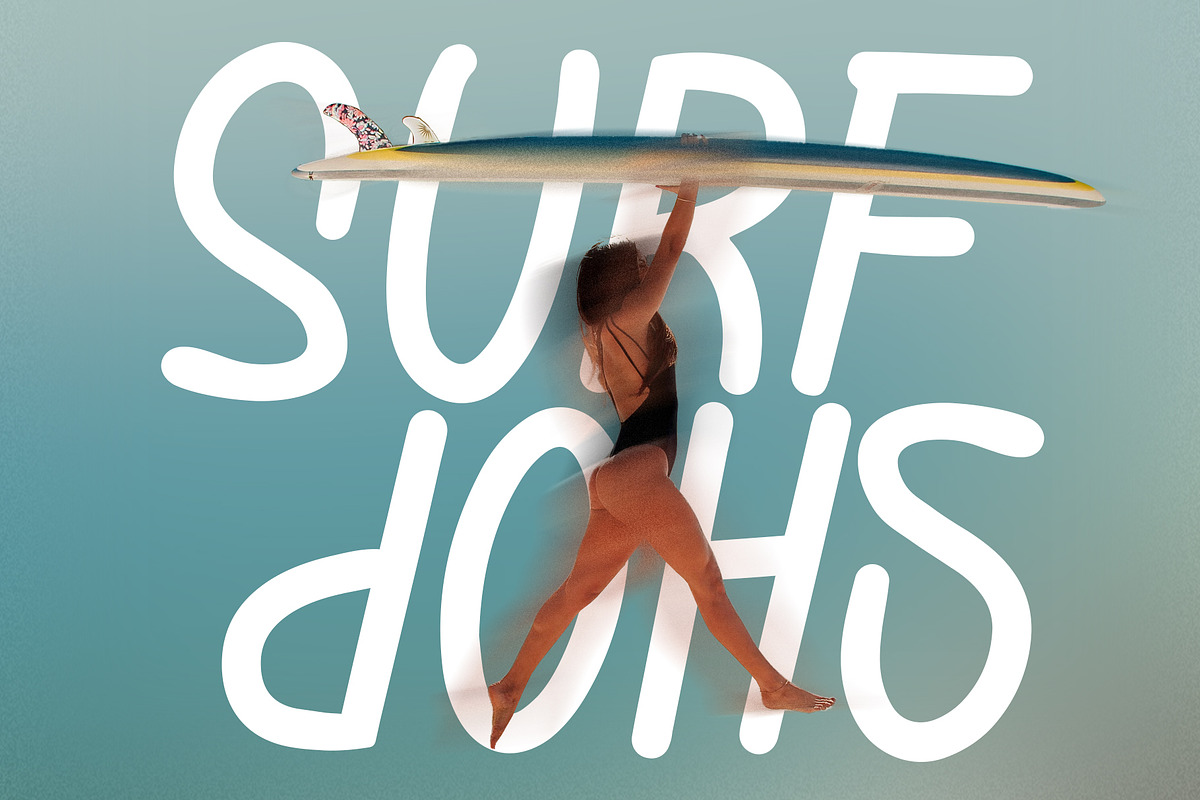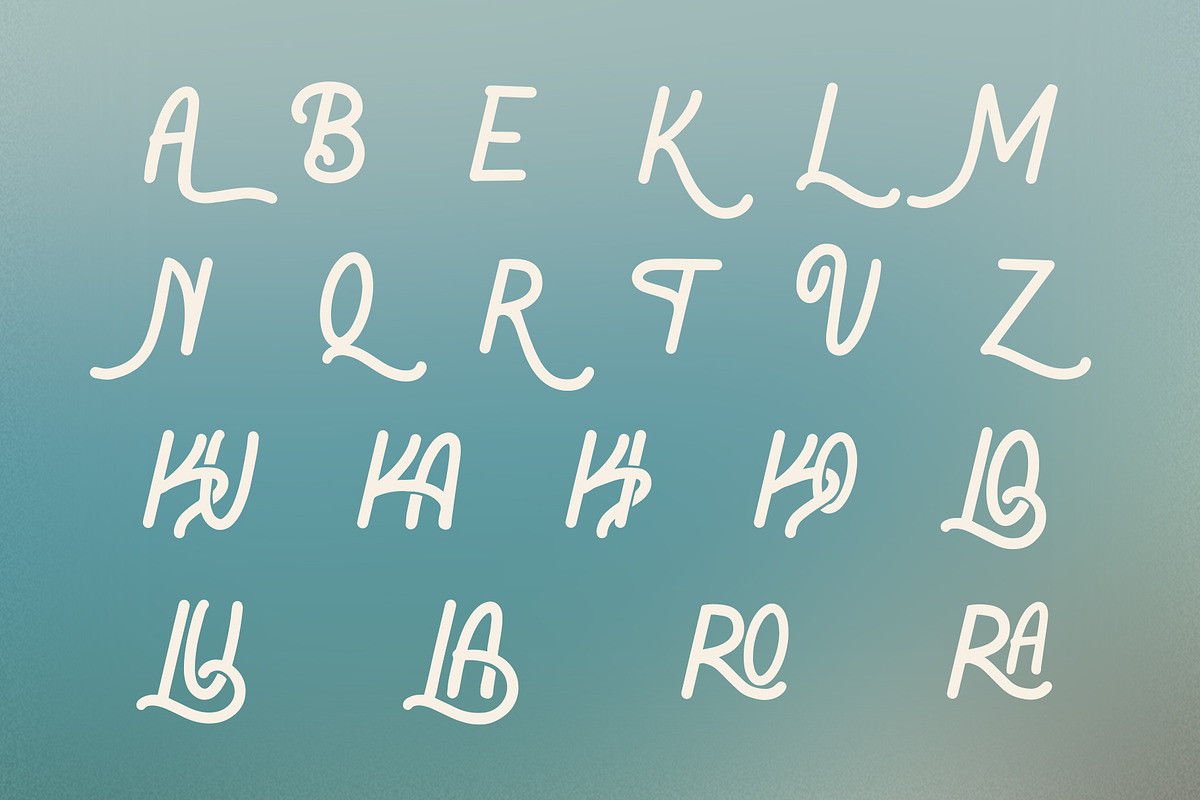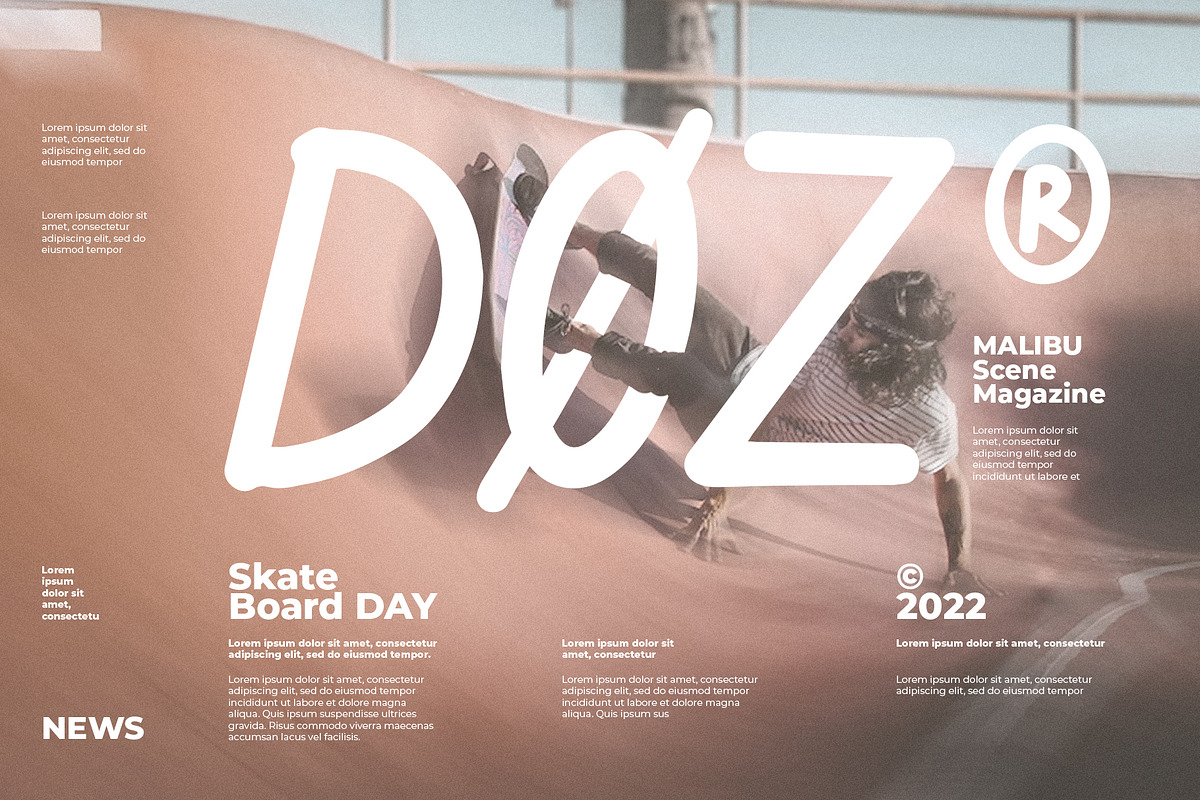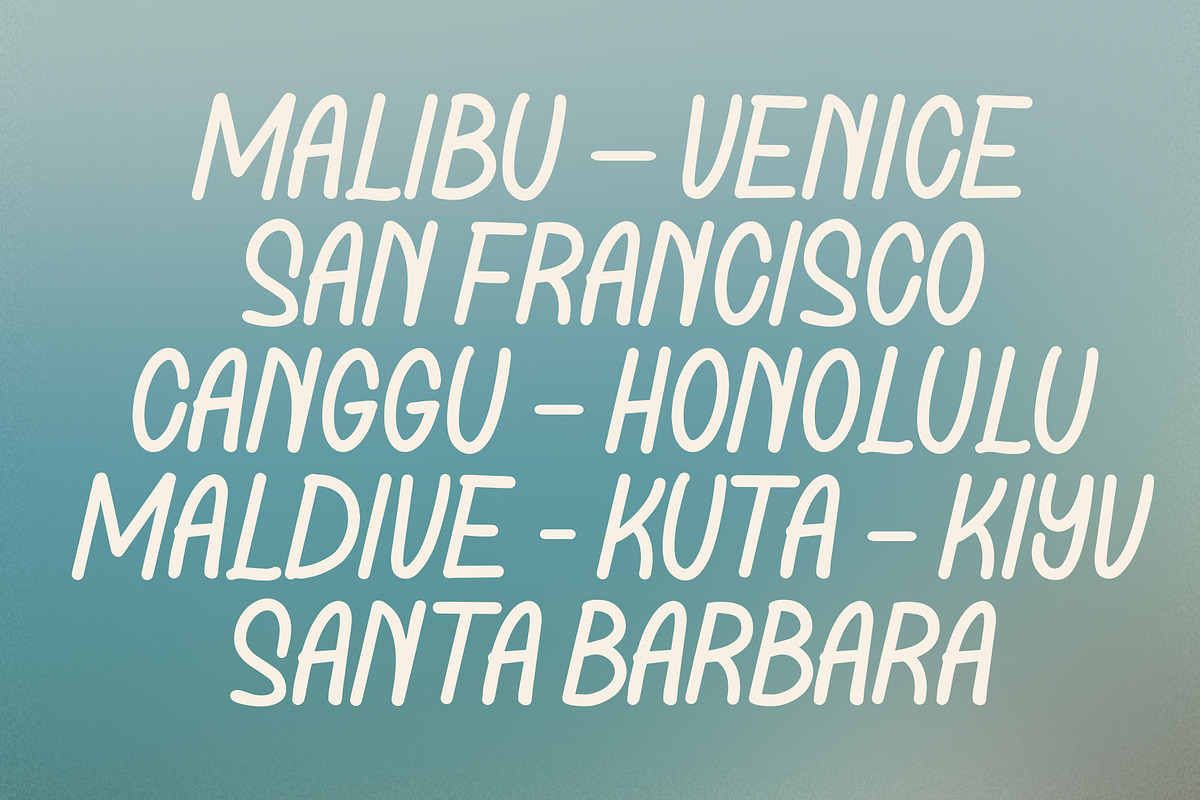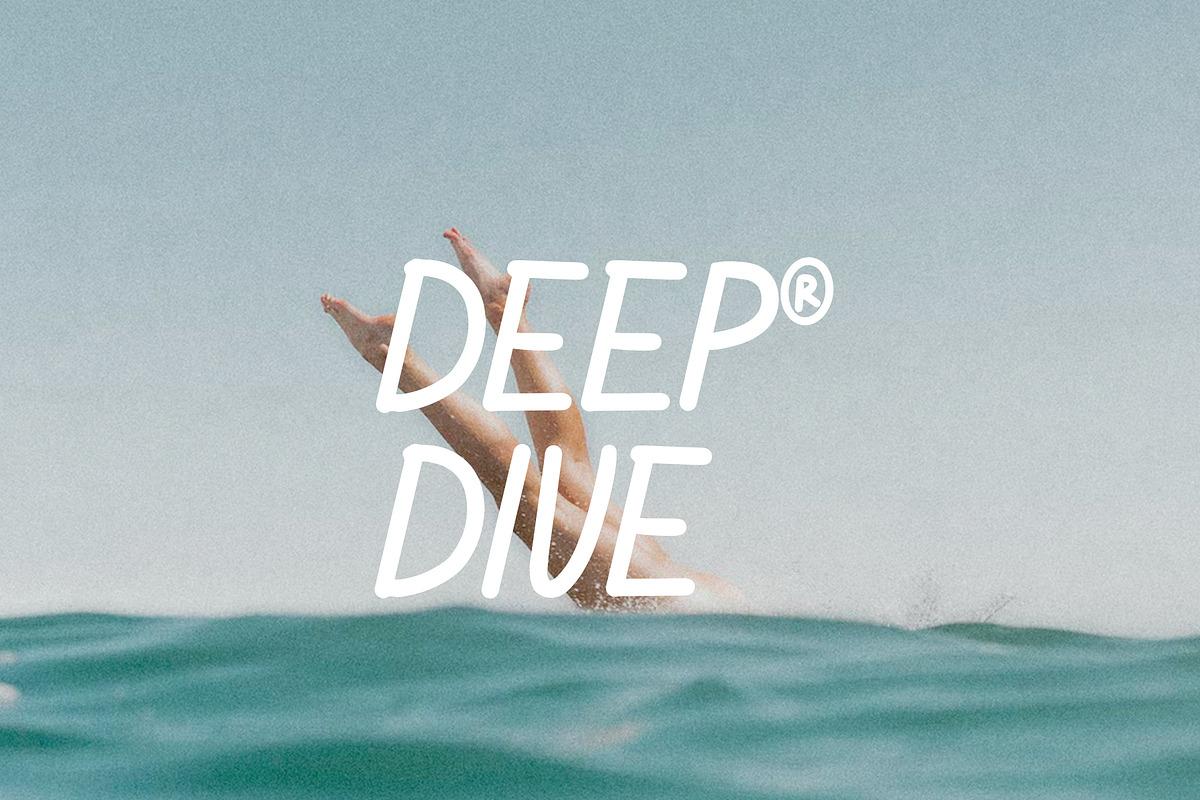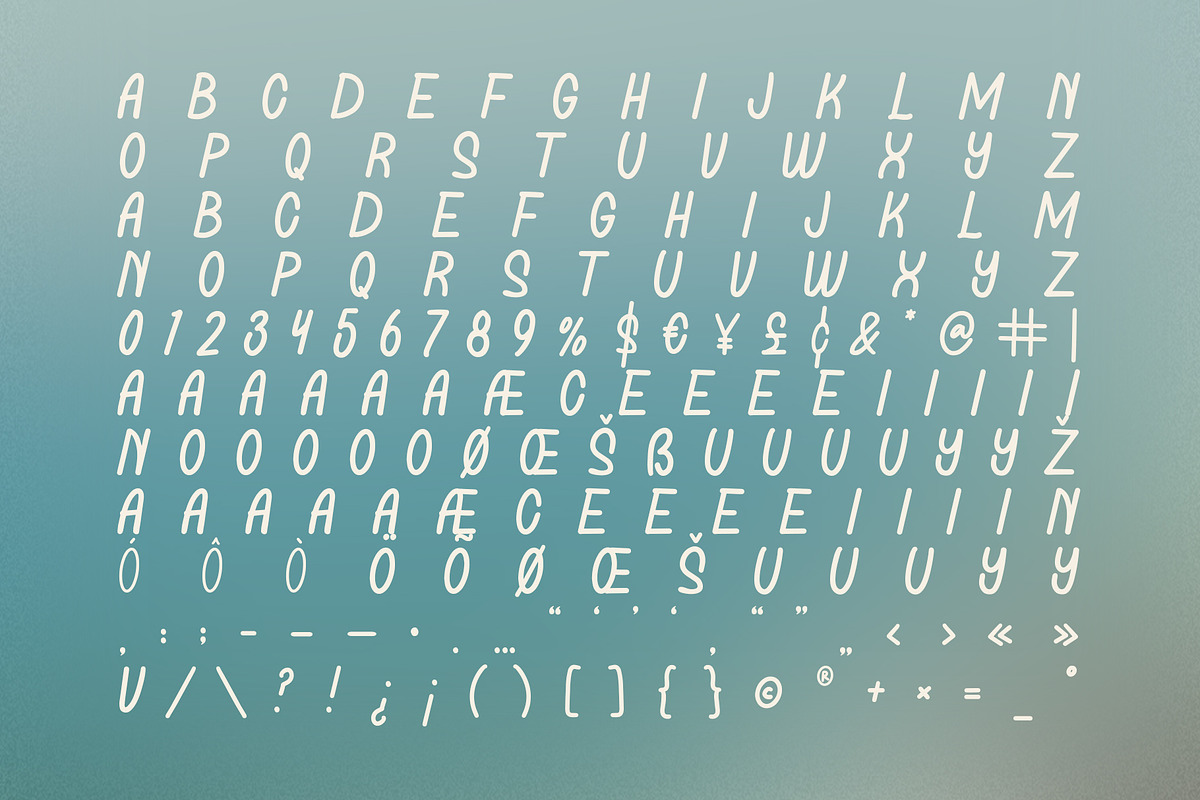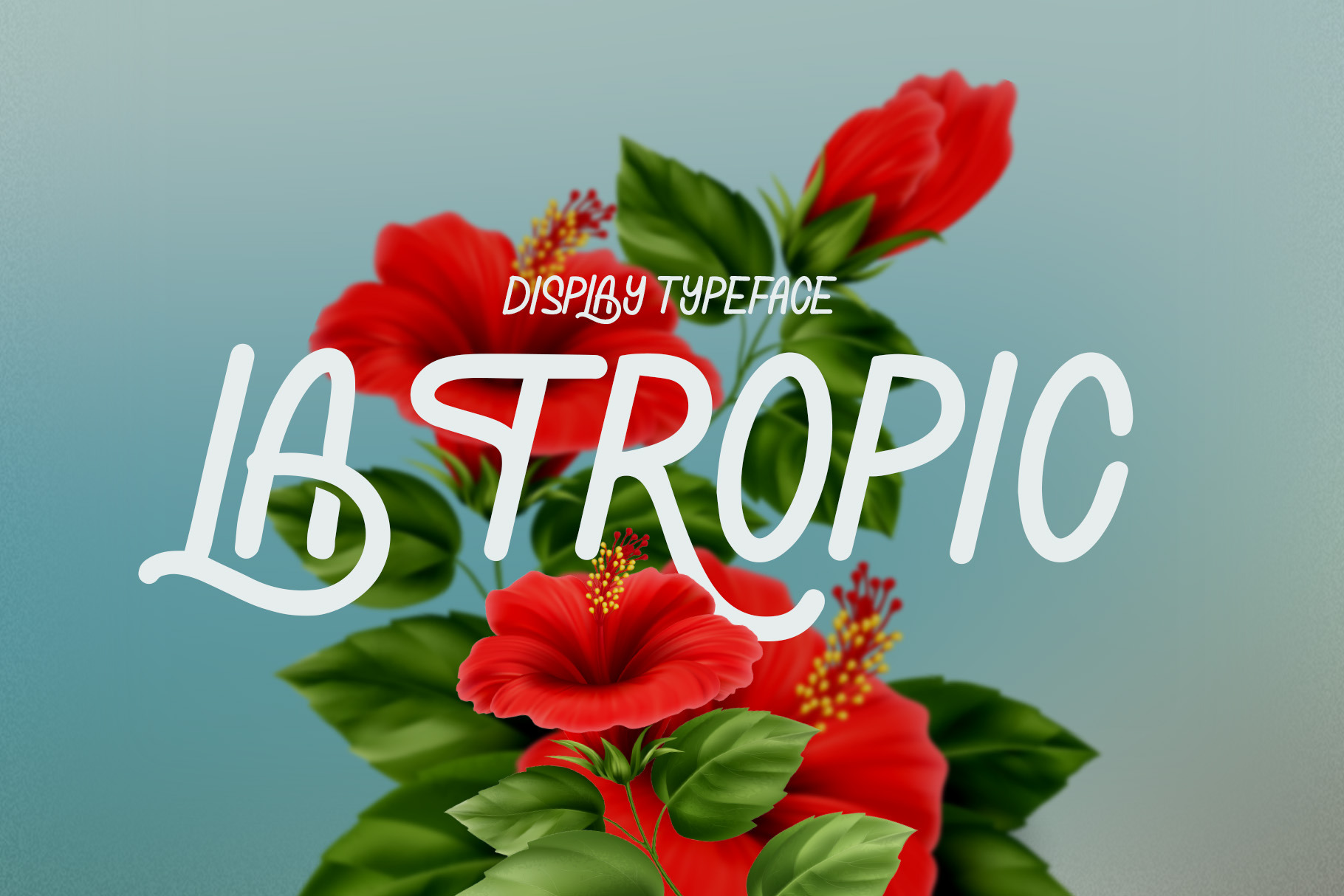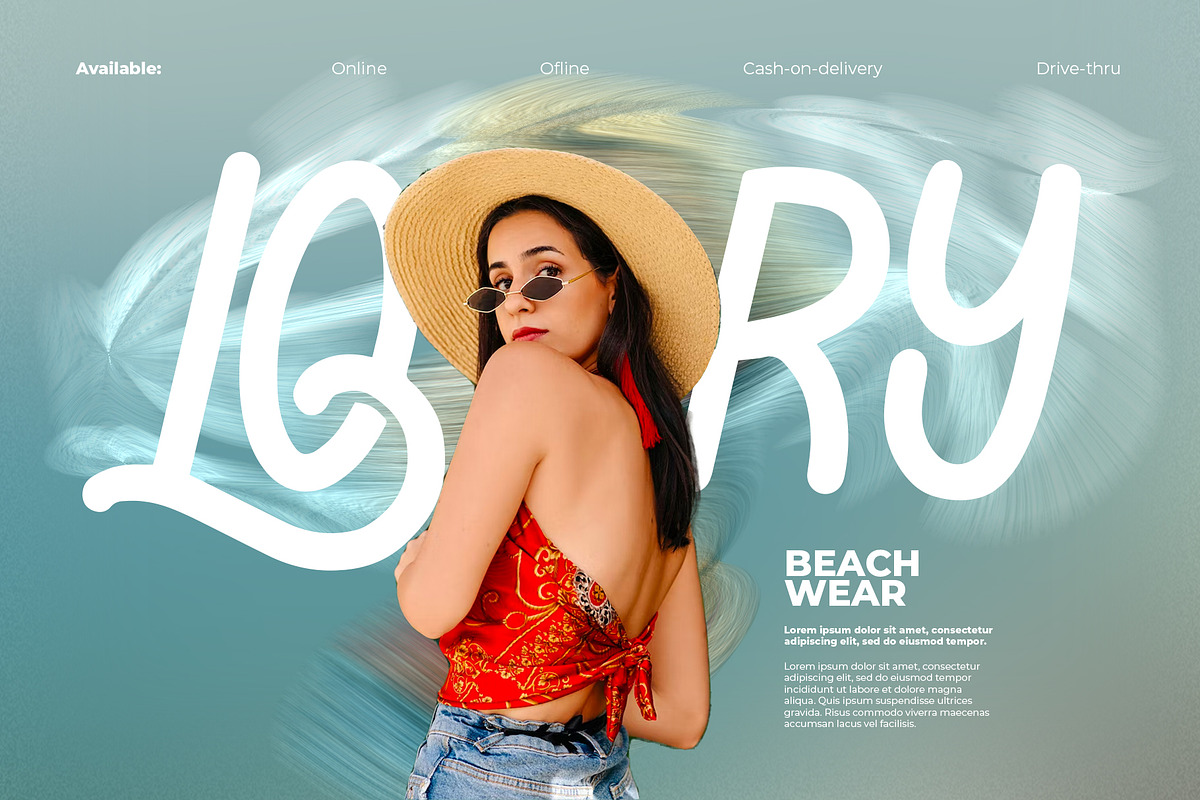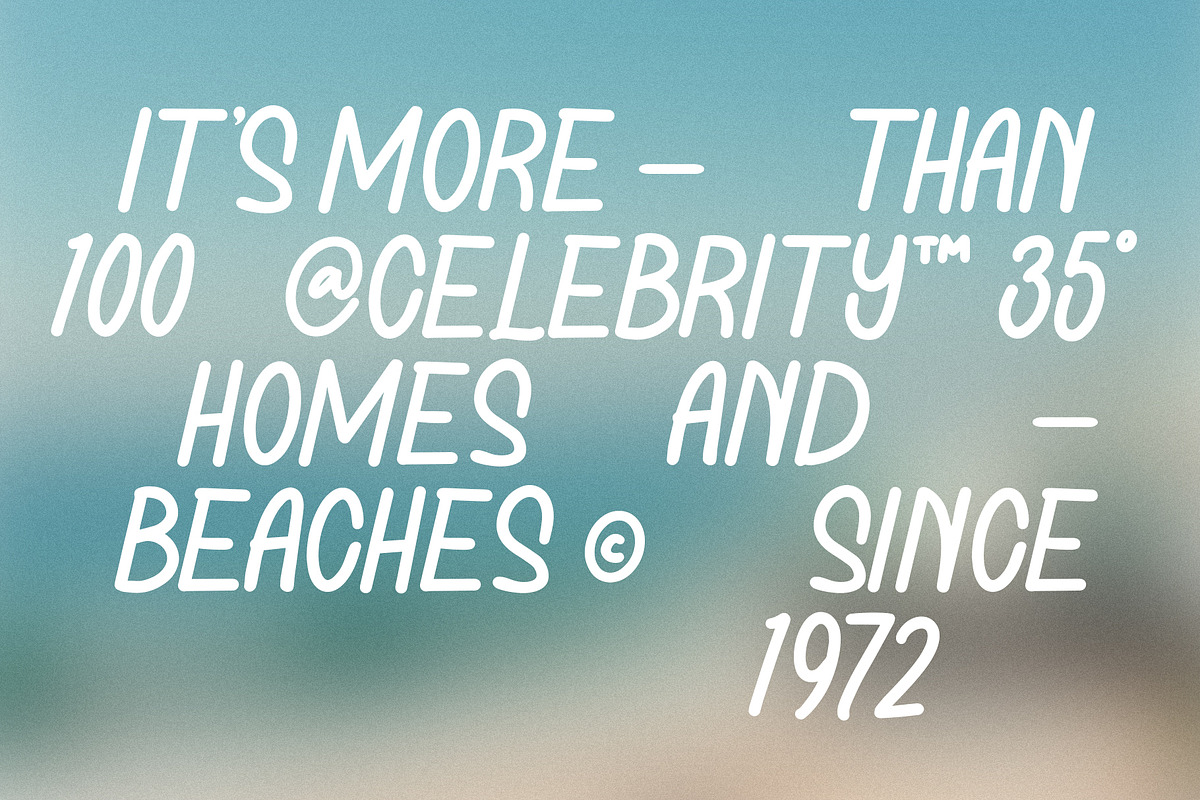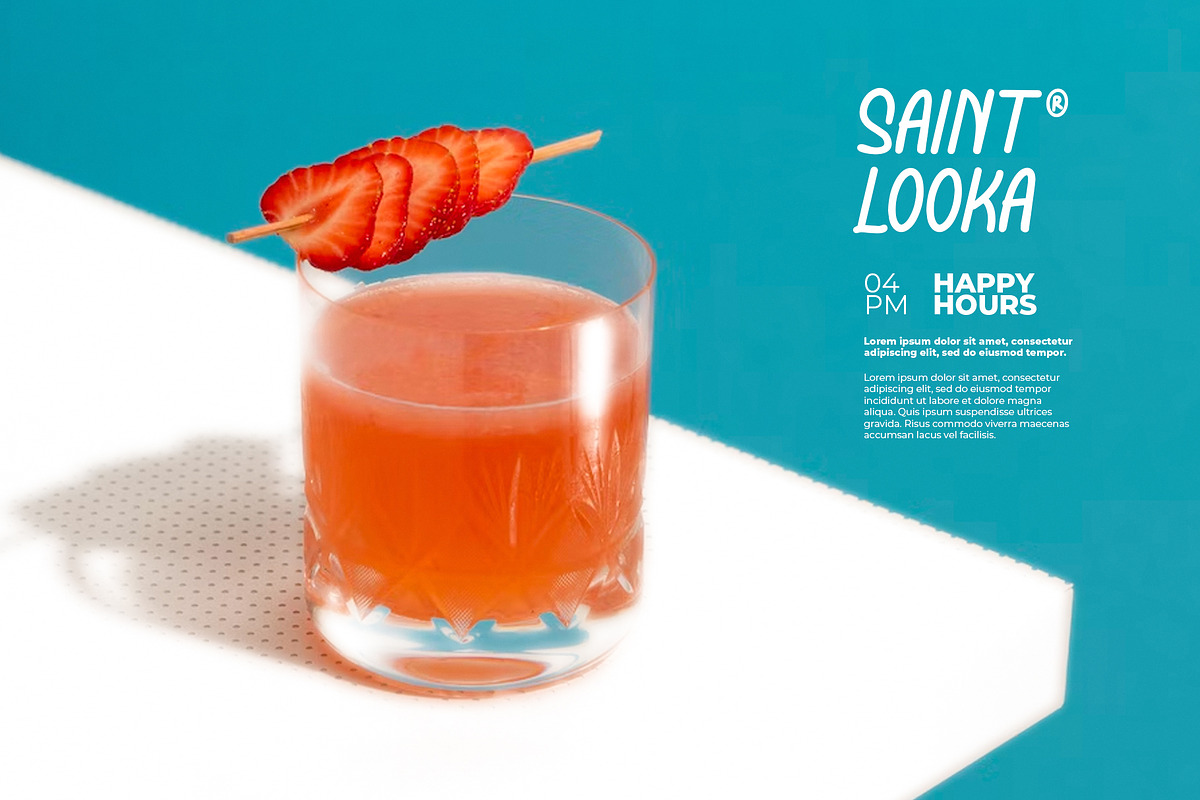
La Tropic Summer Typeface
Introducing La Tropic
A groovy tropical handwriting font, embodies craftsmanship with a natural flow. Its chill and happy style brings crisp modernity to your designs. This font is perfect for inclusive accessibility, adding a touch of boho and Mediterranean vibes to websites, packaging, logos, and more. Explore the unique and original charm of La Tropic, reminiscent of sea, ocean, and the joyous atmosphere of Summer solstices.
Experience the superior features of La Tropic – a font that invites you to relax and embrace the harmony of hot Surfing Beach, Resort Holiday, Travel Vocation, and Paradise Party aesthetics. Whether designing surfboards, signs, or holiday cards, La Tropic's versatility shines through, providing a unique and original choice for a wide range of projects.
Numbers and punctuation